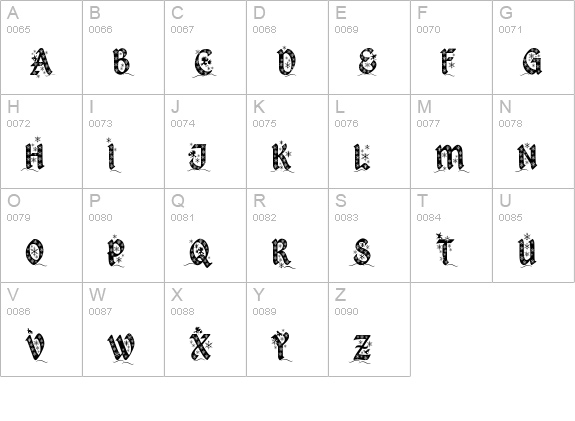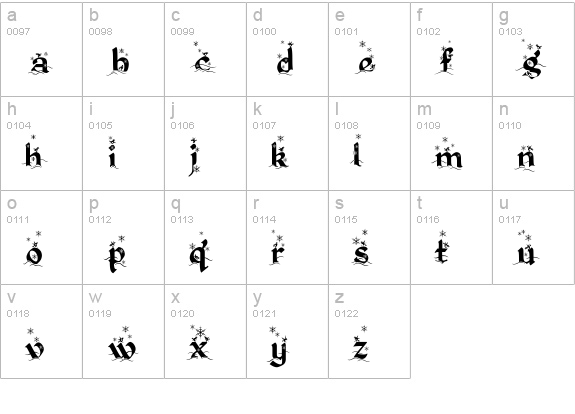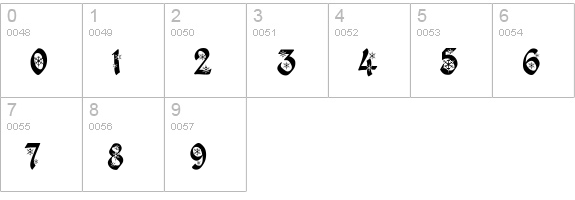
Introducing Kingthings Christmas, a whimsical and festive font that brings the joy and magic of the holiday season to your designs. With its playful and hand-drawn style, this font is perfect for adding a touch of Christmas cheer to your greeting cards, invitations, posters, and more. Kingthings Christmas features beautifully designed uppercase and lowercase letters, complete with decorative swashes and charming flourishes that will make your text sparkle like freshly fallen snow. Whether you're creating holiday-themed designs or simply want to add a festive touch to your personal projects, this font will bring a jolly and warm atmosphere to your work. But what makes Kingthings Christmas truly special is that it is completely free! Yes, you read that right – this amazing font is freely available to download at FontsMarket.com. So, you can spread the holiday spirit without spending a penny. Imagine the possibilities with Kingthings Christmas – from creating stunning gift tags to designing eye-catching social media posts, this font will transform your projects into a winter wonderland. Its versatility and charm make it suitable for both professional and personal use, allowing you to add a touch of holiday magic to anything you create. Whether you're a graphic designer, a craft enthusiast, or simply someone who loves the holiday season, Kingthings Christmas is a must-have font in your collection. So, don't miss out on this opportunity to download it for free at FontsMarket.com and make your designs shine brighter than Rudolph's nose. Spread the joy and warmth of Christmas with Kingthings Christmas font today!